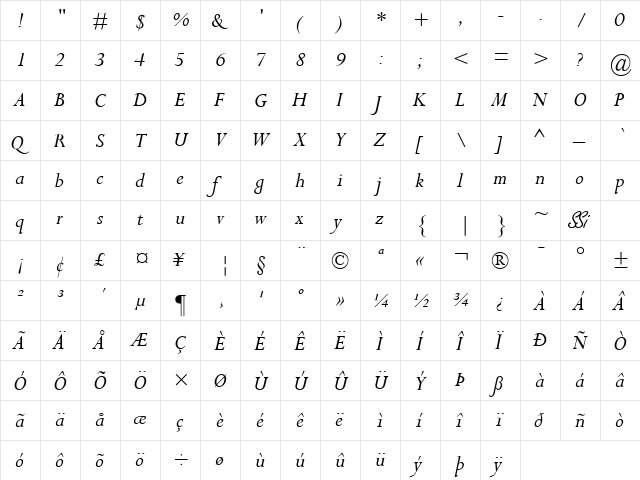
Compleat SSi Italic
Design Context for Compleat SSi Typeface
Compleat SSi offers clean, dependable letterforms without strong stylistic allegiance, making it a practical choice for designers who need flexibility. The slanted form adds forward momentum and visual energy.